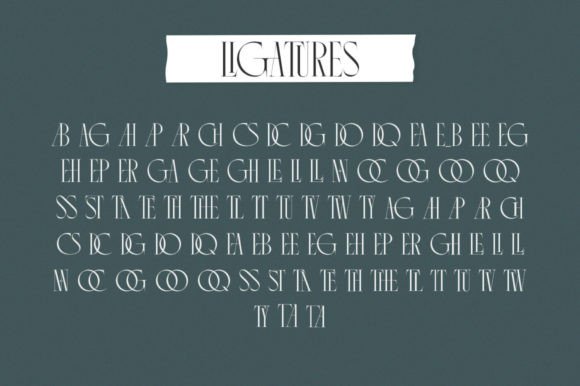
Introducing Chevani Font: The Ultimate Choice for Dramatic Headlines and Titles
In the world of typography, fonts play a crucial role in conveying the message and tone of a brand or design. With the numerous font options available, it can be challenging to find the perfect one that stands out from the rest. However, if you’re looking for a unique and versatile font that can elevate your design to the next level, look no further than Chevani Font. In this article, we’ll explore the features and benefits of Chevani, a distinctive all-caps condensed serif font that’s perfect for creating dramatic headlines and titles.
What is Chevani Font?
Chevani Font is a one-of-a-kind, all-caps condensed serif font designed to make a statement. Its unique blend of classic serif elements and modern condensed features makes it an excellent choice for designers, marketers, and typographers. Chevani is specifically crafted to create visually striking headlines, titles, and captions that demand attention.
Key Features of Chevani Font
So, what sets Chevani apart from other fonts? Here are some of its key features:
- All-caps design: Chevani is an all-caps font, making it perfect for headlines, titles, and emphasis.
- Condensed serif: The font’s condensed design allows for more text to fit within a smaller space, while the serif elements add a touch of sophistication.
- Alternate characters: Chevani includes a range of alternate characters that are significantly wider than standard characters. These alternate characters enable designers to create dramatic and varied headlines.
- Custom ligatures: The font features a selection of custom ligatures, which add an extra layer of versatility and creativity to your designs.
The Benefits of Using Chevani Font
So, why choose Chevani Font for your design projects? Here are some benefits of using Chevani:
- Unique and distinctive: Chevani’s exclusive design ensures that your headlines and titles stand out from the crowd.
- Highly versatile: The font’s range of alternate characters and custom ligatures makes it suitable for various design applications, from posters and billboards to digital screens and social media.
- Easily readable: Despite its condensed design, Chevani remains highly legible, even at smaller font sizes.
- Time-saving: With Chevani’s extensive range of features, designers can save time and effort, as they don’t need to create custom characters or ligatures from scratch.
How to Use Chevani Font Effectively
To get the most out of Chevani Font, here are some tips on how to use it effectively:
- Experiment with alternate characters: Take advantage of Chevani’s alternate characters to create varied and dynamic headlines.
- Mix and match ligatures: Use the custom ligatures to add a creative touch to your titles and captions.
- Play with font sizes: Chevani’s condensed design makes it suitable for use at various font sizes, from large headlines to smaller body text.
- Pair with complementary fonts: Combine Chevani with other fonts to create visually appealing and harmonious typography.
Who Can Benefit from Chevani Font?
Chevani Font is an excellent choice for various professionals and businesses, including:
- Graphic designers: Chevani’s unique features make it an excellent addition to any designer’s font library.
- Marketing agencies: The font’s attention-grabbing design makes it perfect for creating compelling headlines and titles for marketing campaigns.
- Typographers: Chevani’s range of alternate characters and custom ligatures makes it an attractive option for typographers looking to push the boundaries of creative typography.
- Brands and businesses: Companies looking to establish a strong visual identity can use Chevani to create distinctive and memorable branding.
In conclusion, Chevani Font is a game-changer for designers, marketers, and typographers looking to elevate their designs with unique and attention-grabbing typography. Its all-caps condensed serif design, range of alternate characters, and custom ligatures make it an incredibly versatile font that’s perfect for creating dramatic headlines and titles. Whether you’re looking to make a statement or simply want to add some creativity to your designs, Chevani Font is an excellent choice.
FAQs About Chevani Font
- What is the style of Chevani Font? Chevani Font is an all-caps condensed serif font.
- What are the key features of Chevani Font? Chevani Font features alternate characters, custom ligatures, and a highly legible design.
- Is Chevani Font suitable for digital use? Yes, Chevani Font is optimized for use on various digital platforms, including social media, websites, and digital screens.